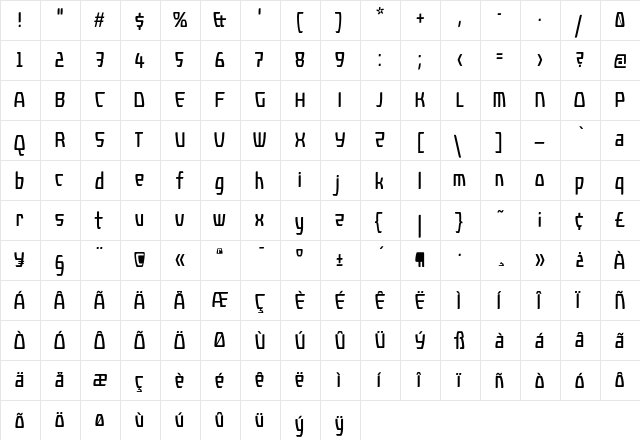
Kompressor Regular
Design Context for Kompressor Typeface
Kompressor takes a measured approach to typography — its balanced proportions and neutral character make it a reliable workhorse for both digital and print work.
Pro Tip: Use Kompressor in both headline and body roles to test its range before committing to a single application.